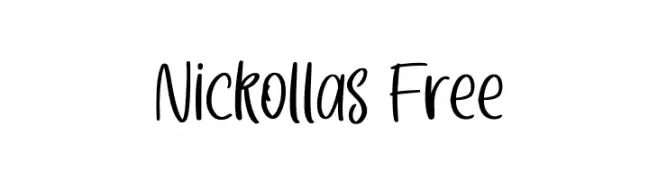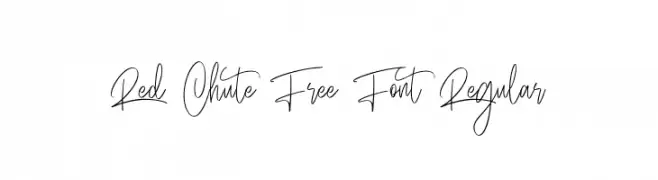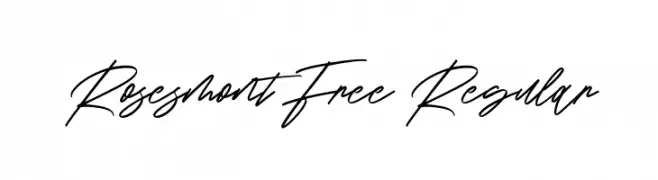
Bold, modern handwritten script font.
Elegant handwritten script font.
Elegant cursive script with a handwritten feel.
Casual handwritten script font.
Playful handwritten font with tall, narrow letters.
Elegant handwritten script font.
Elegant cursive script font.
Expressive handwritten font with a casual style.
Elegant cursive script with a handwritten feel.
Elegant handwritten font with a natural flow.
Playful handwritten script font.
Casual handwritten script font.
Elegant handwritten script font.
Expressive, tall handwritten script with fluid, connected strokes.
Elegant, casual handwritten script with connected, flowing strokes.
A modern, handwritten script font with a casual, elegant style.
A whimsical, handwritten script with tall, narrow, and playful strokes.
Elegant, handwritten script with flowing, connected strokes.
Expressive, cursive handwritten script with a signature-like appearance.
Elegant handwritten script with connected, flowing strokes.
Elegant, tall handwritten script with a casual, modern feel.
Expressive handwritten script with tall, narrow letters and fluid connections.
Elegant handwritten script with fluid, connected strokes.
Bold, energetic handwritten script with fluid, connected strokes.
Casual handwritten script with connected, flowing strokes.
Expressive handwritten script with a casual, flowing style.
Elegant, handwritten cursive script with thin, flowing lines.
Bold, brush-style script with a modern, handwritten look.
A thin, casual handwritten script with fluid, continuous lines.
Casual, tall handwritten script with thin, variable strokes.
Energetic, tall handwritten script with fluid, connected strokes.